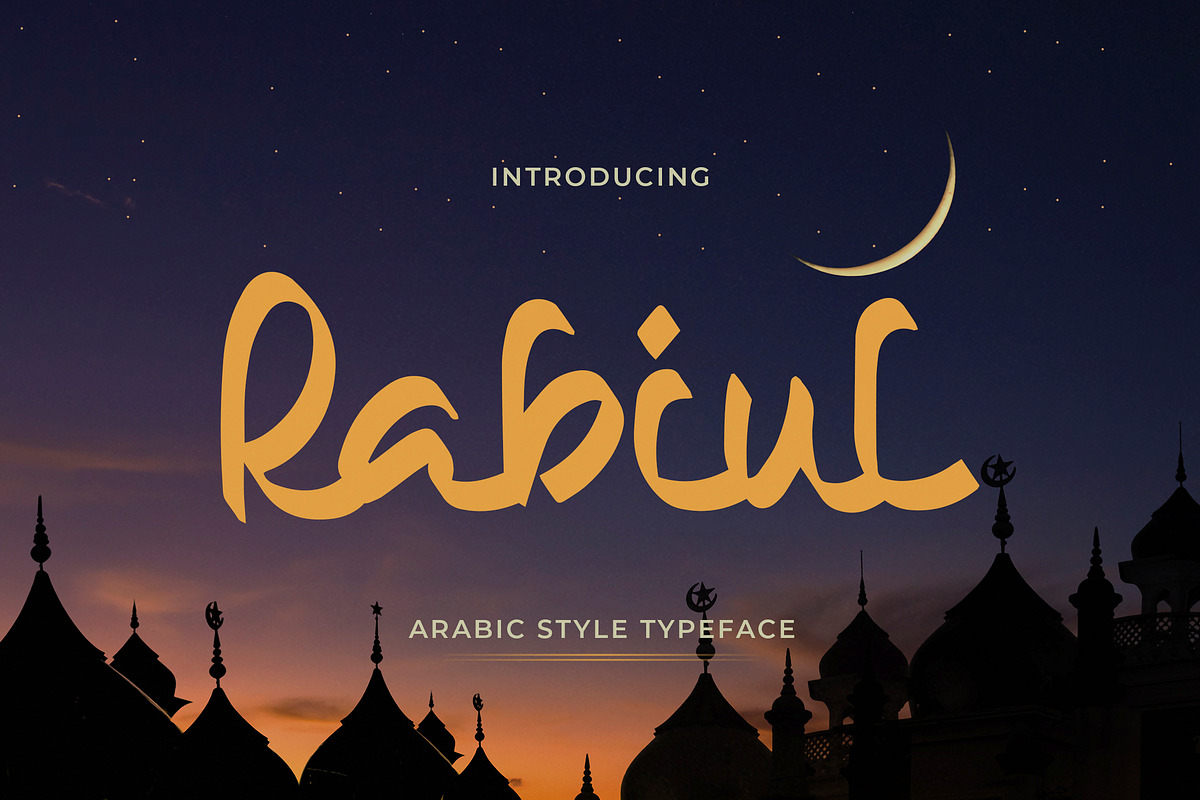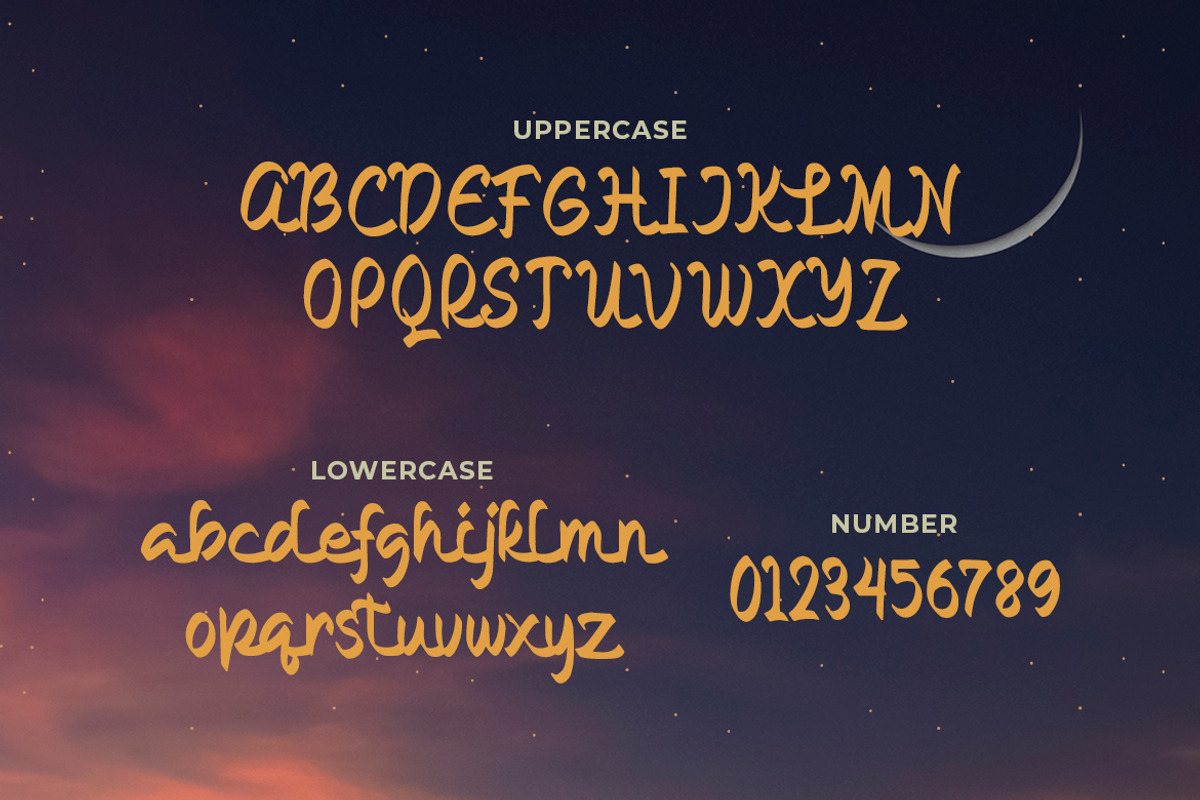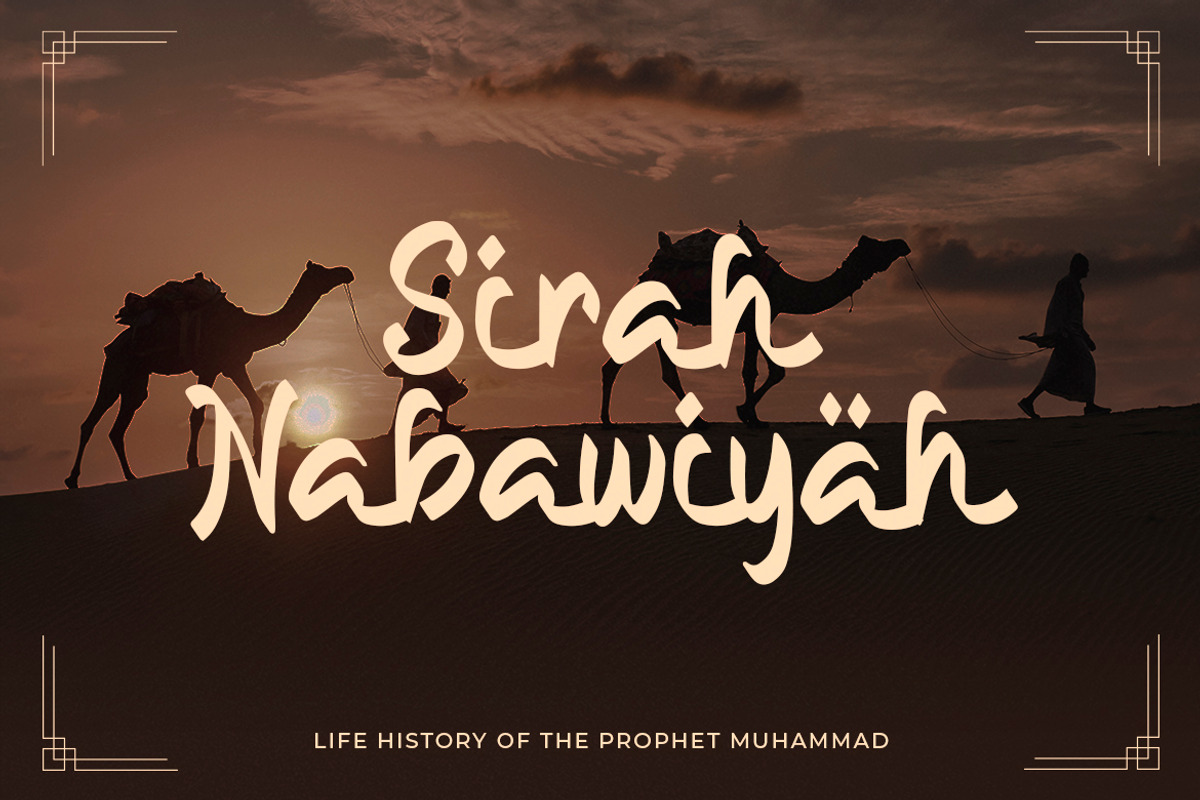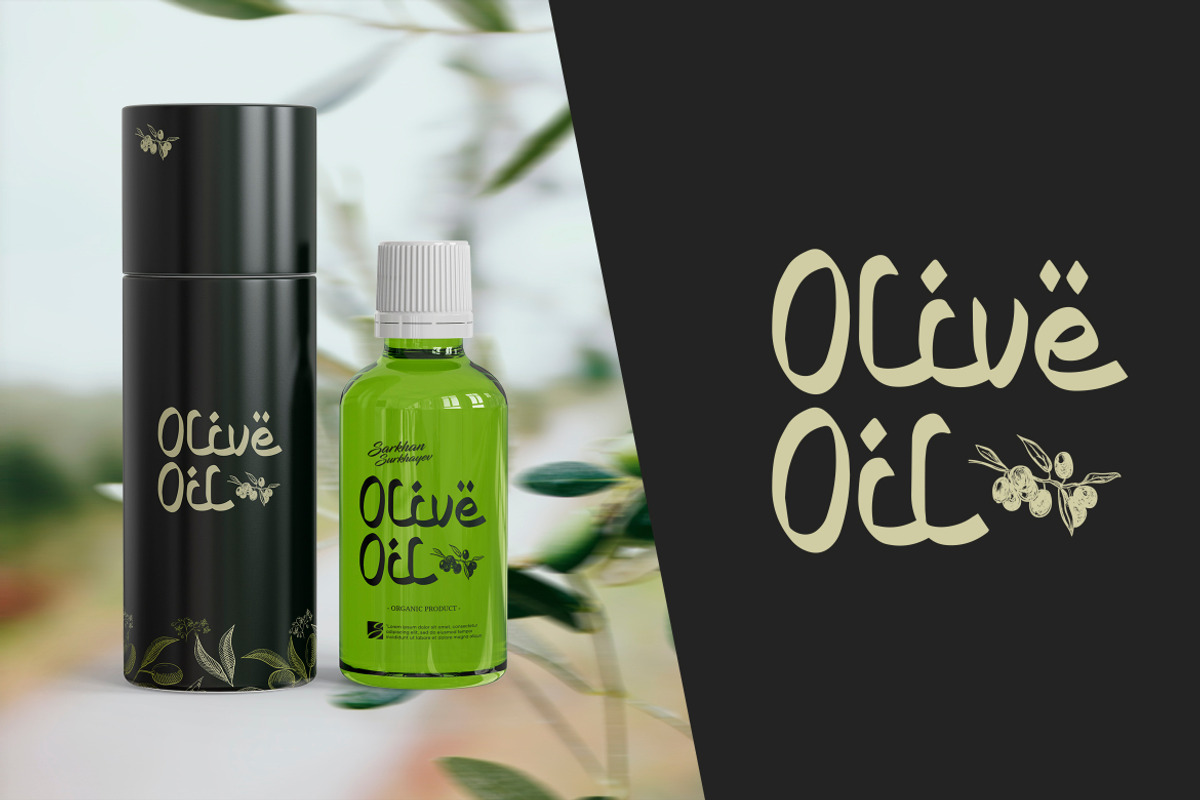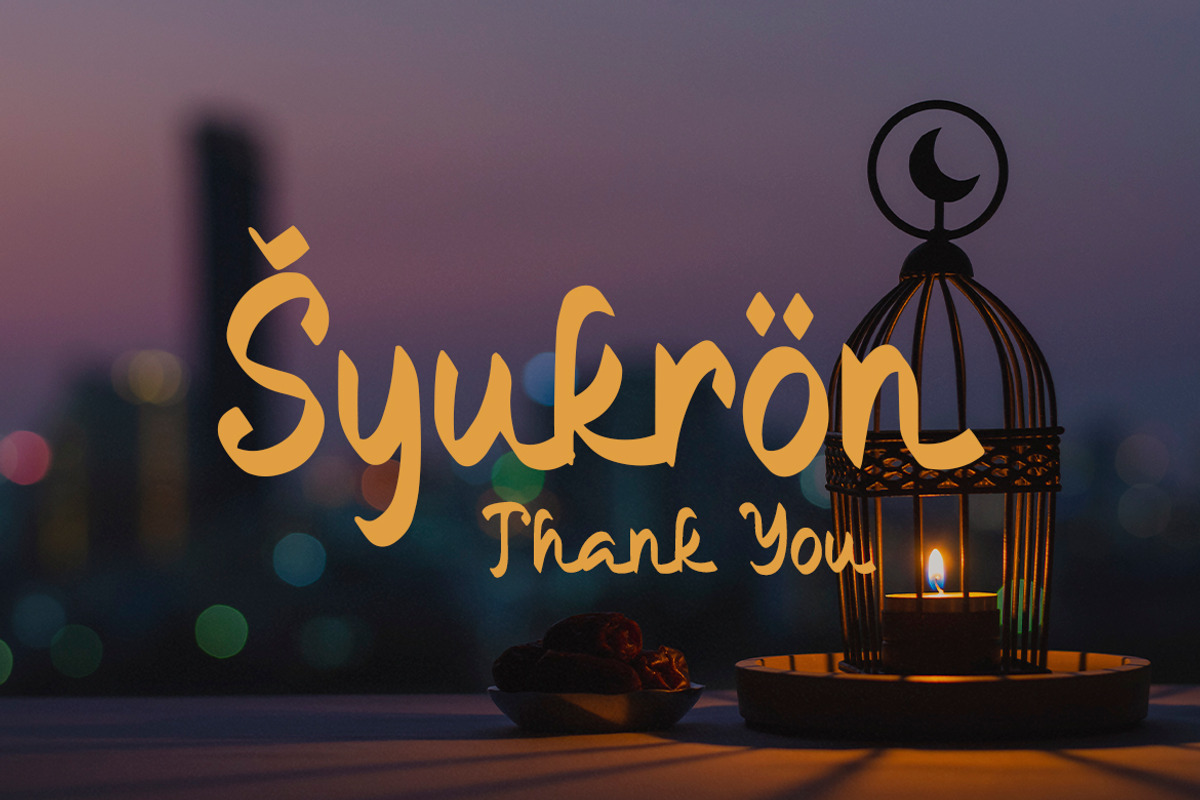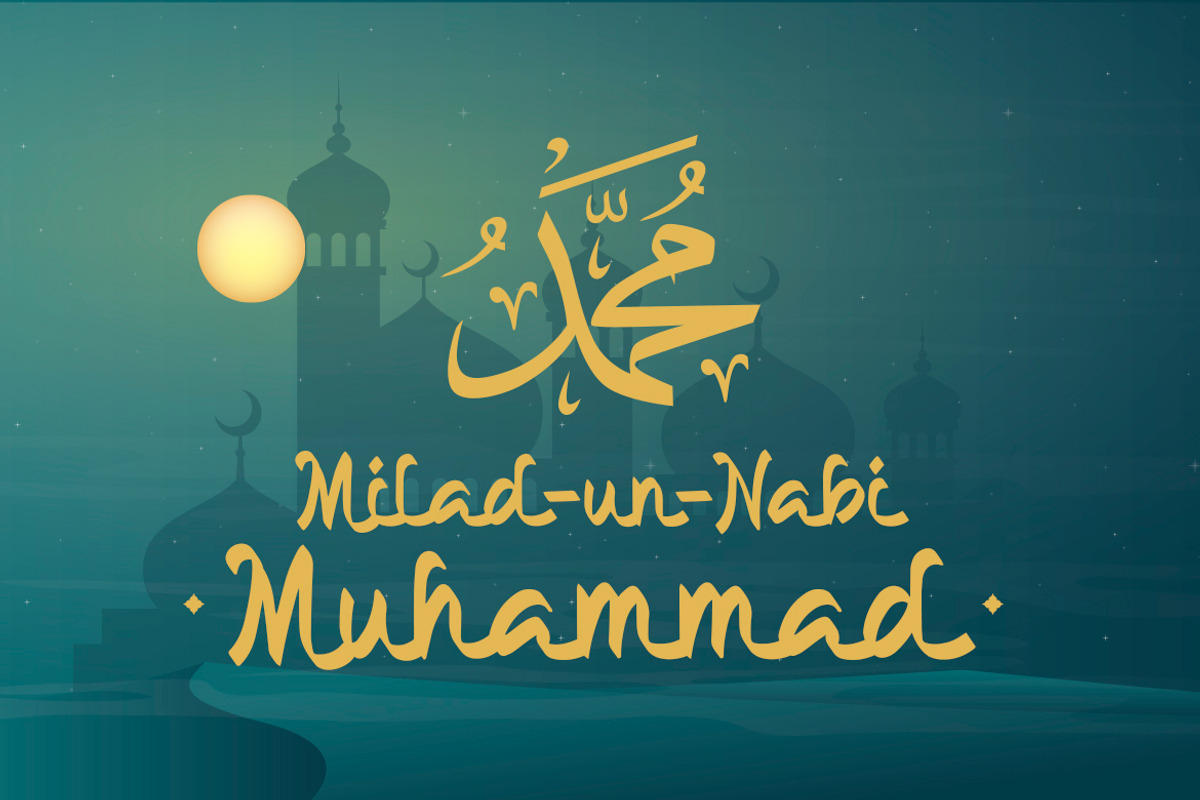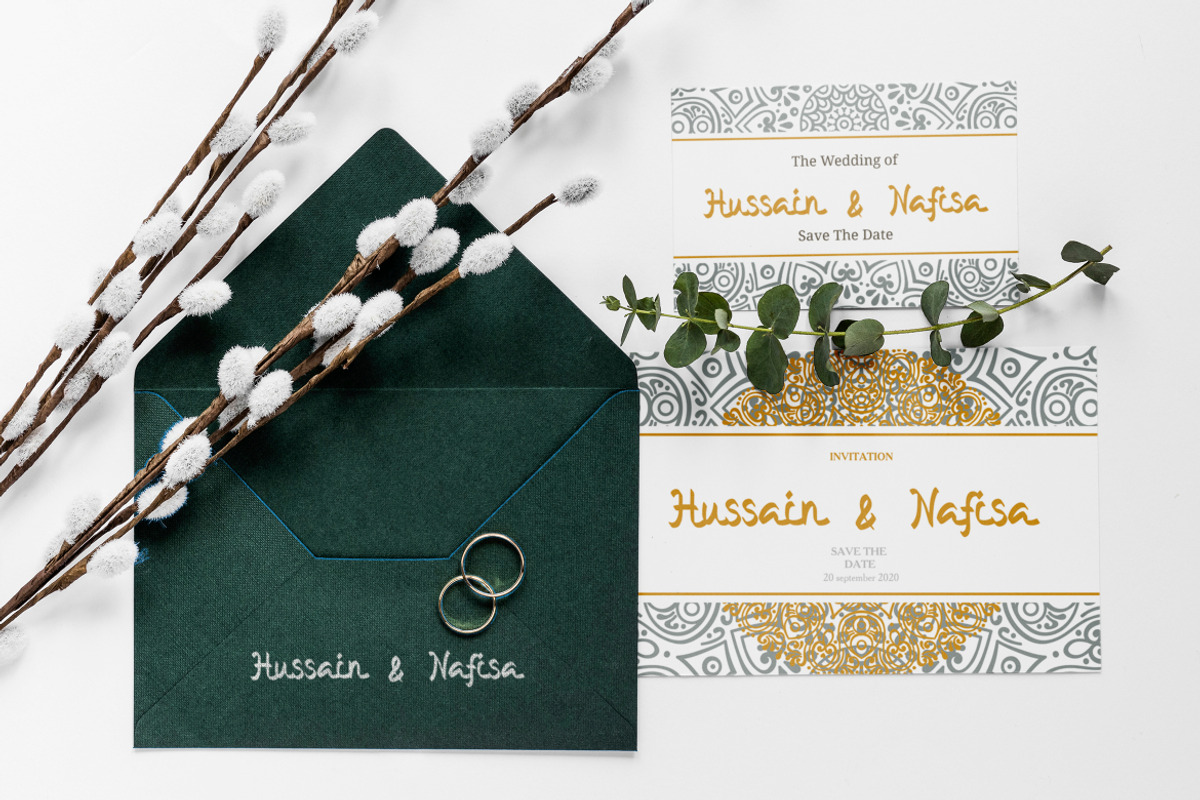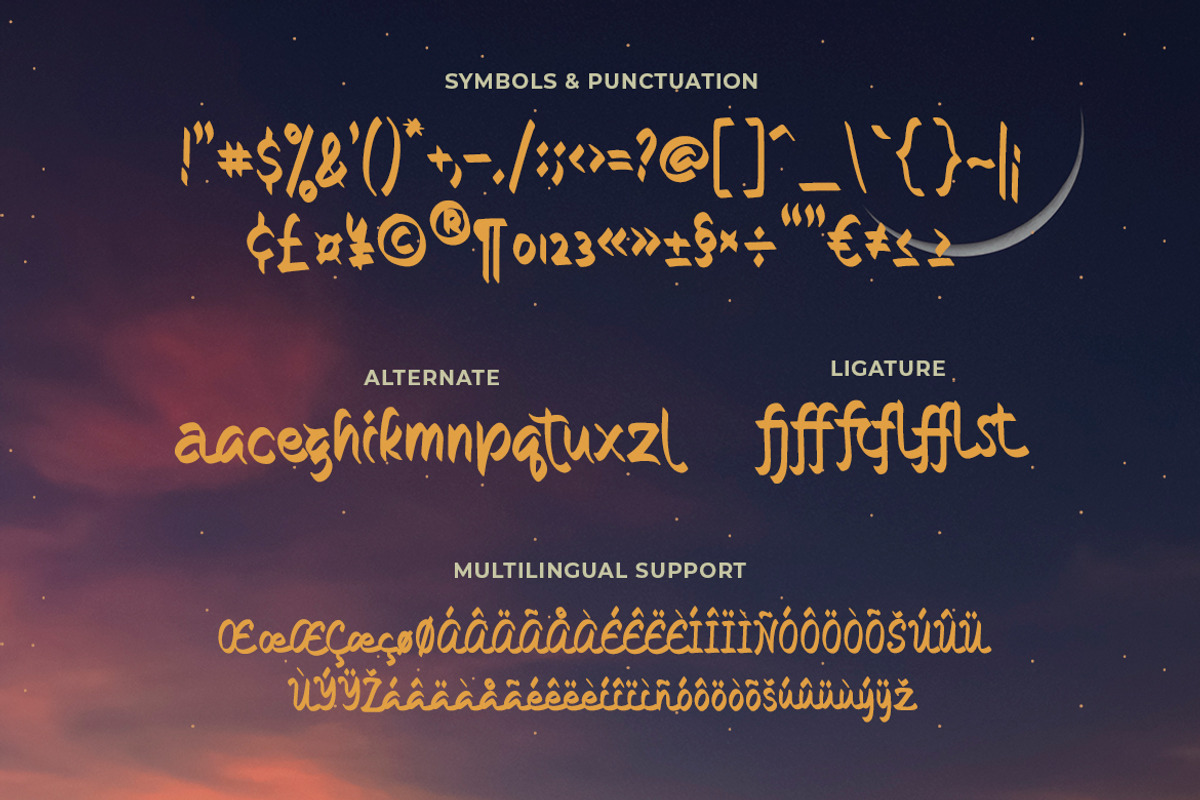
Rabiul - Arabic Style Typeface
Rabiul is an Arabic style that is inspired by the theme of Middle Eastern feel, but with enough simplicity to use in modern designs. The font includes a stylistic set and it suits creative titling on both web and print, perfect for scroll text. Well balanced letters make for readable blocks of copy or headings.
- Symbols & Punctuation
- Numeral